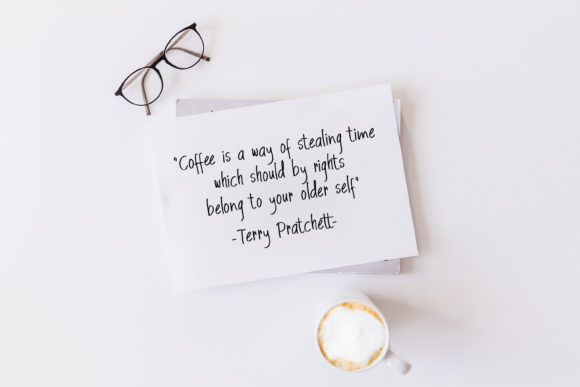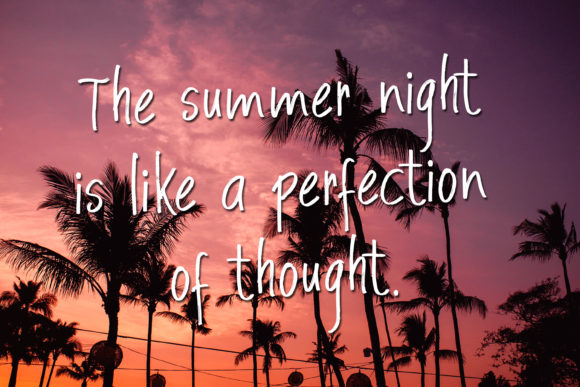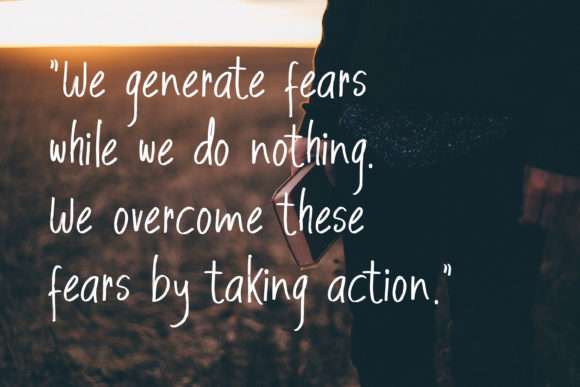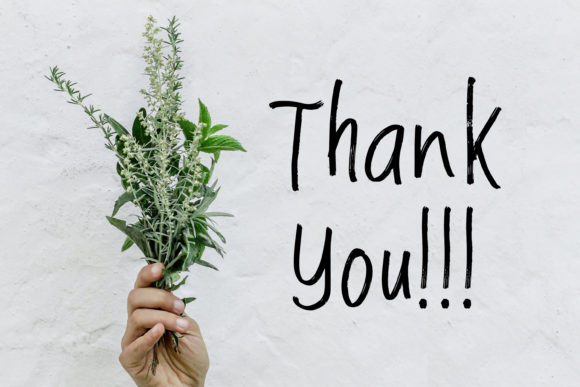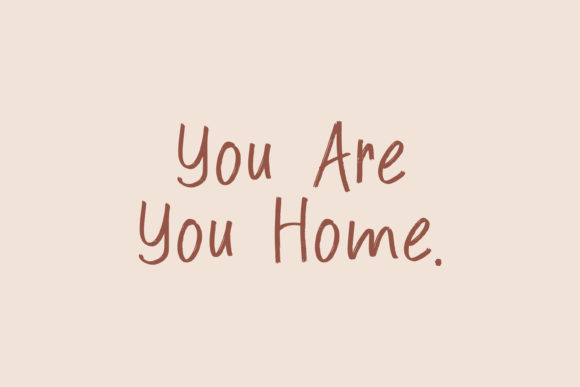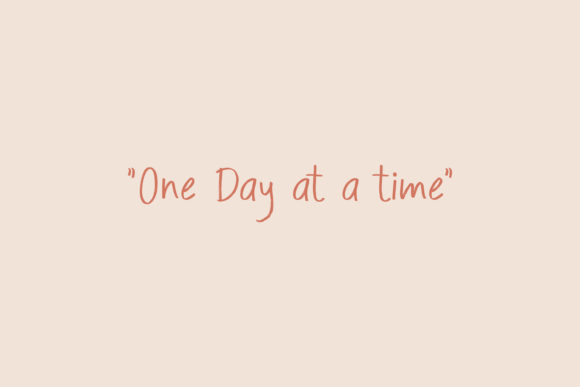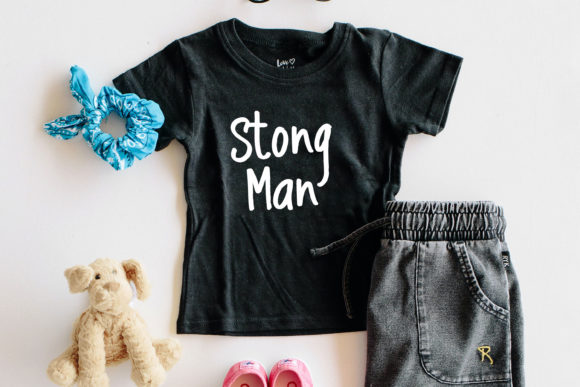
Embolism Spark Font
About Embolism Spark Font
Embolism Spark is a natural script font covering a wide range of project designs. It is ideal for branding, greetings, beautiful quotes, fun packaging design, clothing, product packaging, magazine headers, poster designs and so much more.